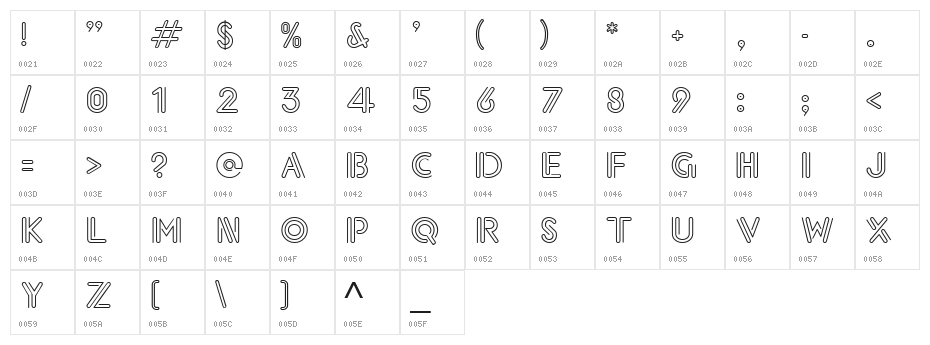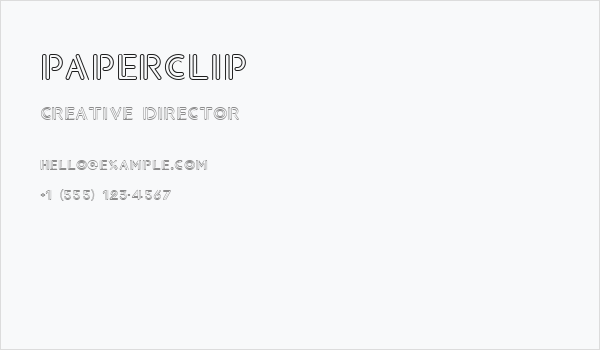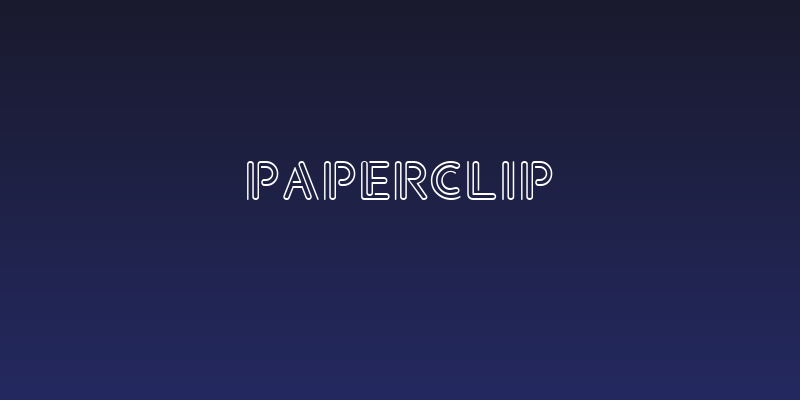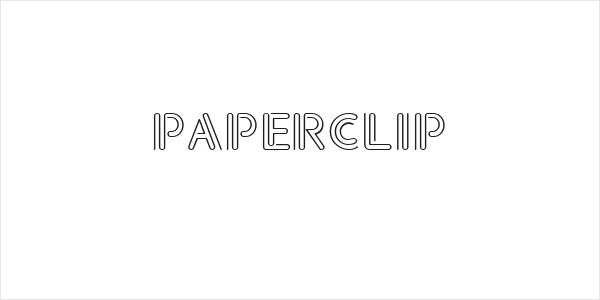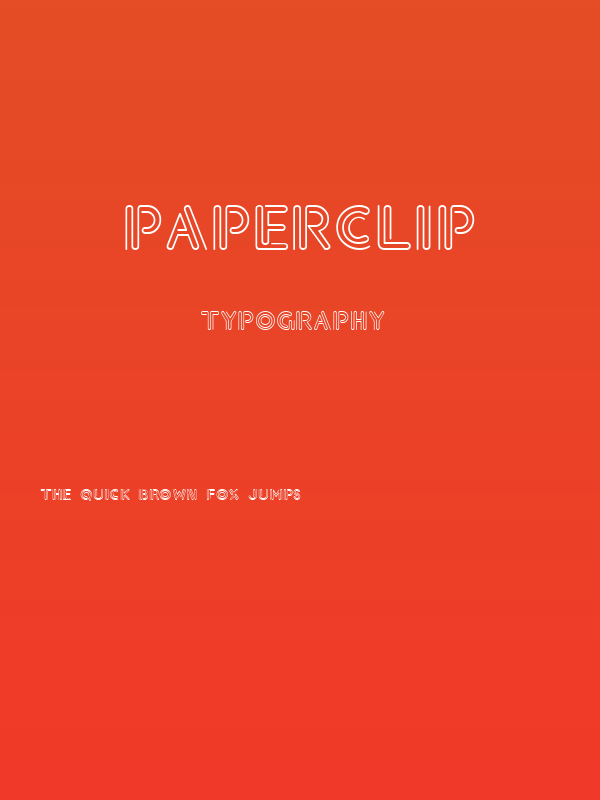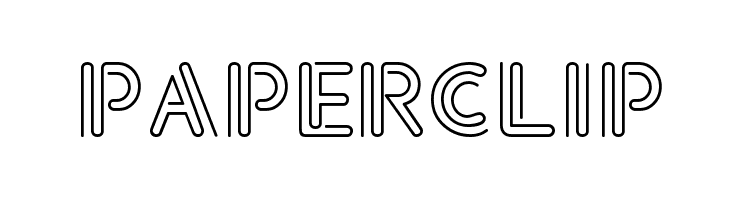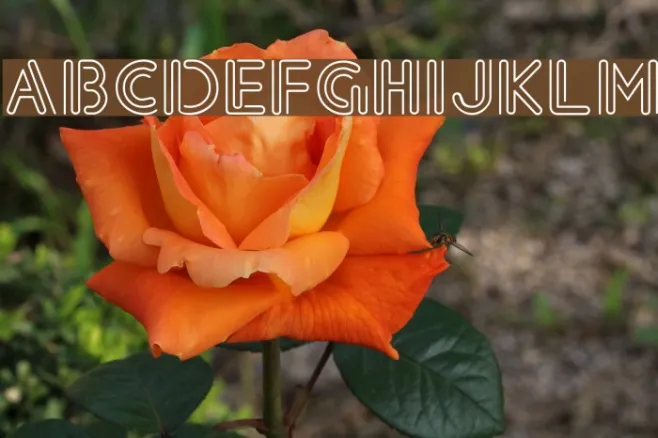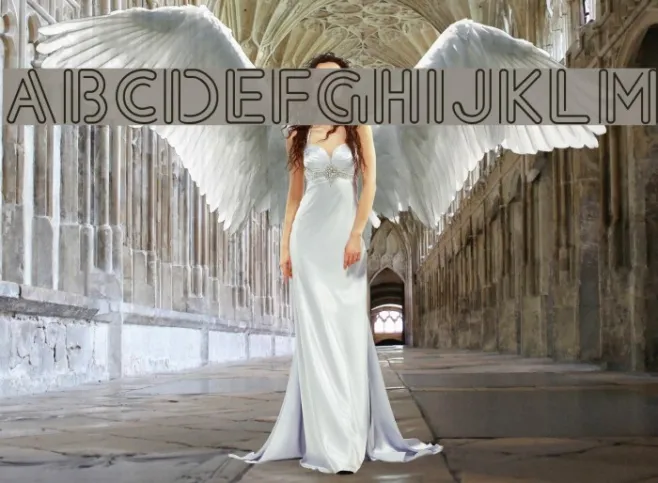
Paperclip Font
Paperclip Description
This font features a unique and playful design with a double-line structure that resembles paperclips. The characters are outlined with a consistent thickness, creating a modern and eye-catching appearance. The uppercase and lowercase letters maintain a uniform style, with rounded edges and a geometric influence. Numbers and special characters follow the same design principles, ensuring a cohesive look across all glyphs. The font's open and airy feel makes it suitable for creative and informal projects, adding a touch of whimsy and modernity.
| Proposed Projects | Ideal for creative branding, posters, children's books, and playful packaging designs. |